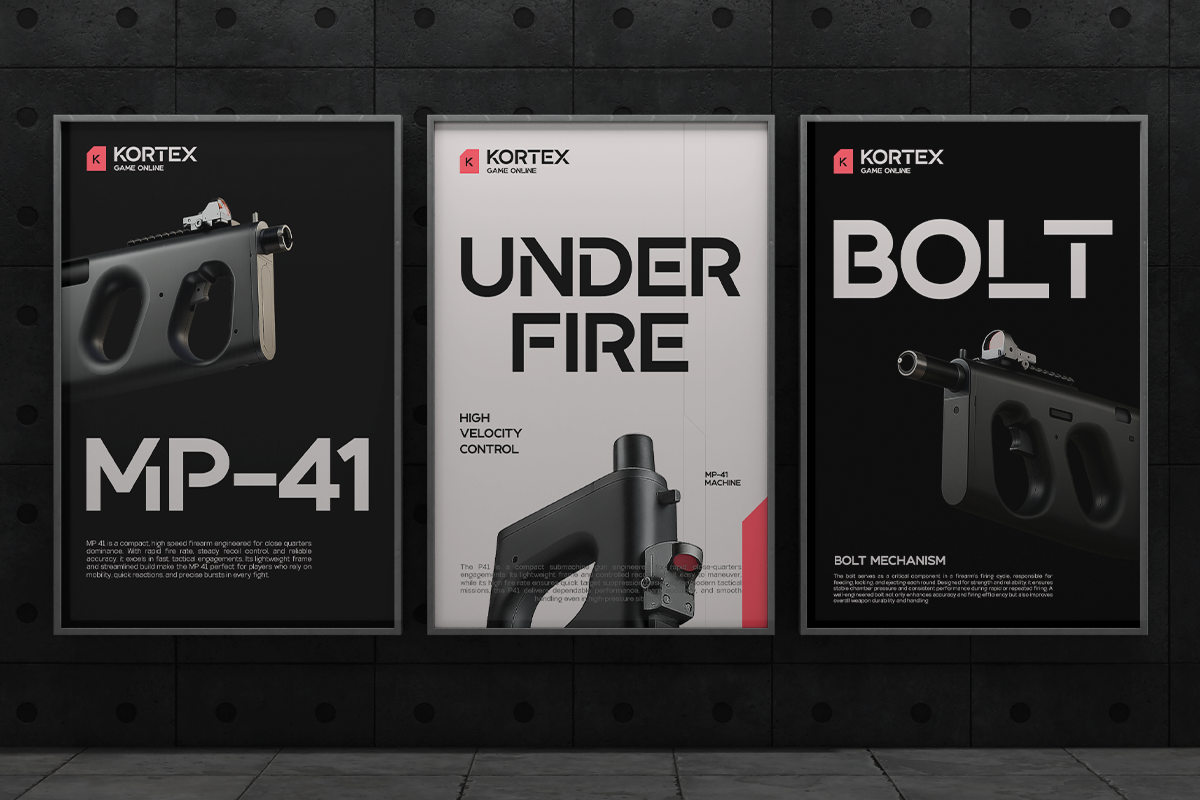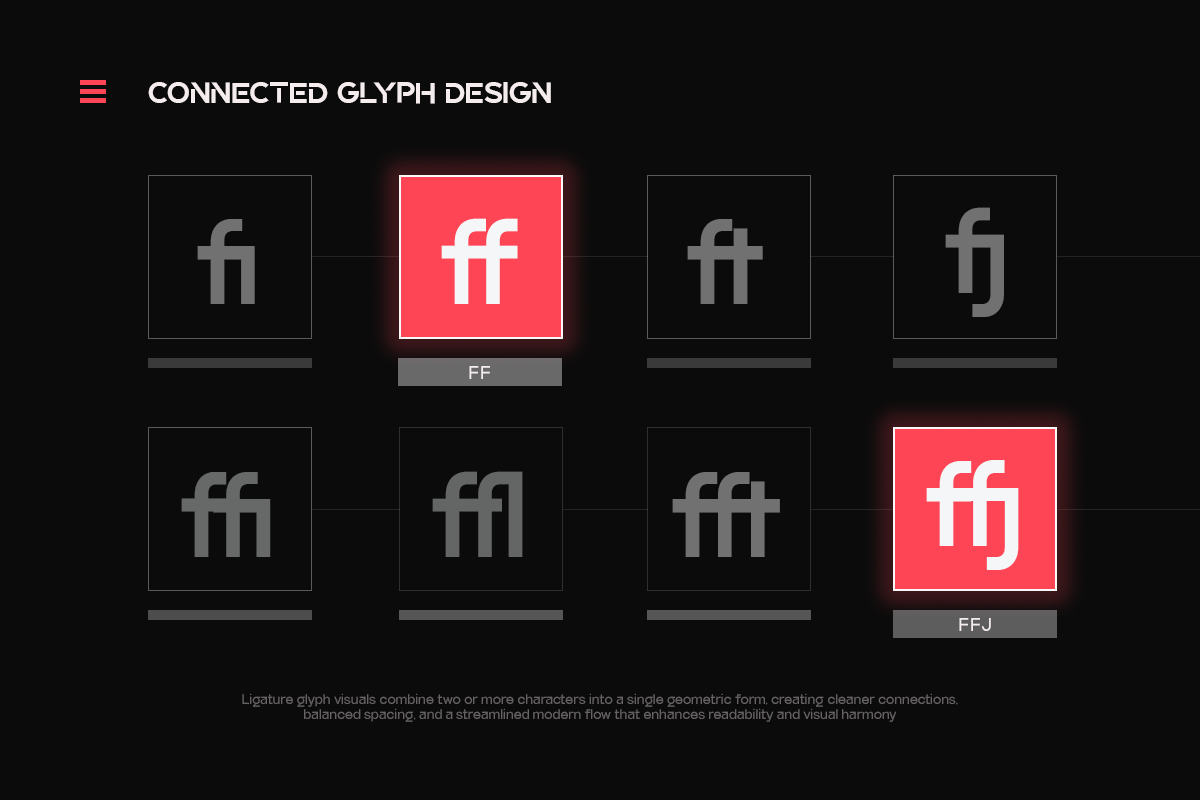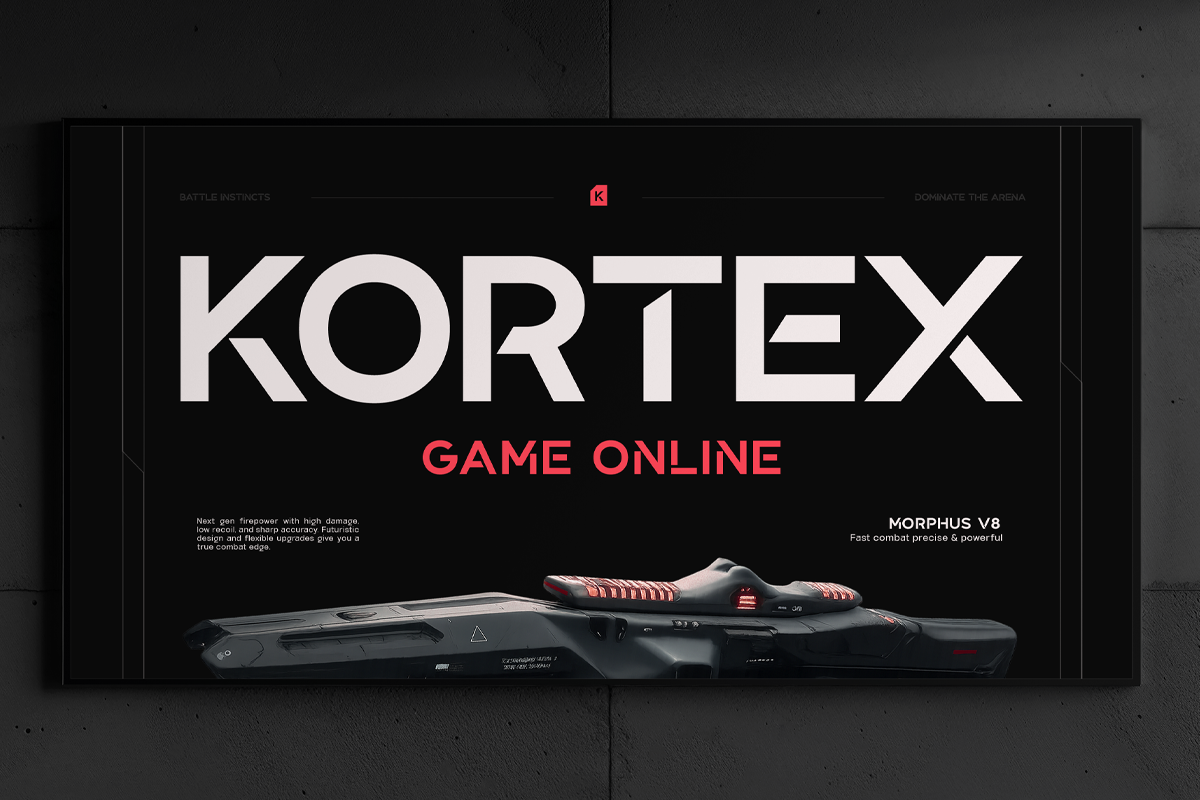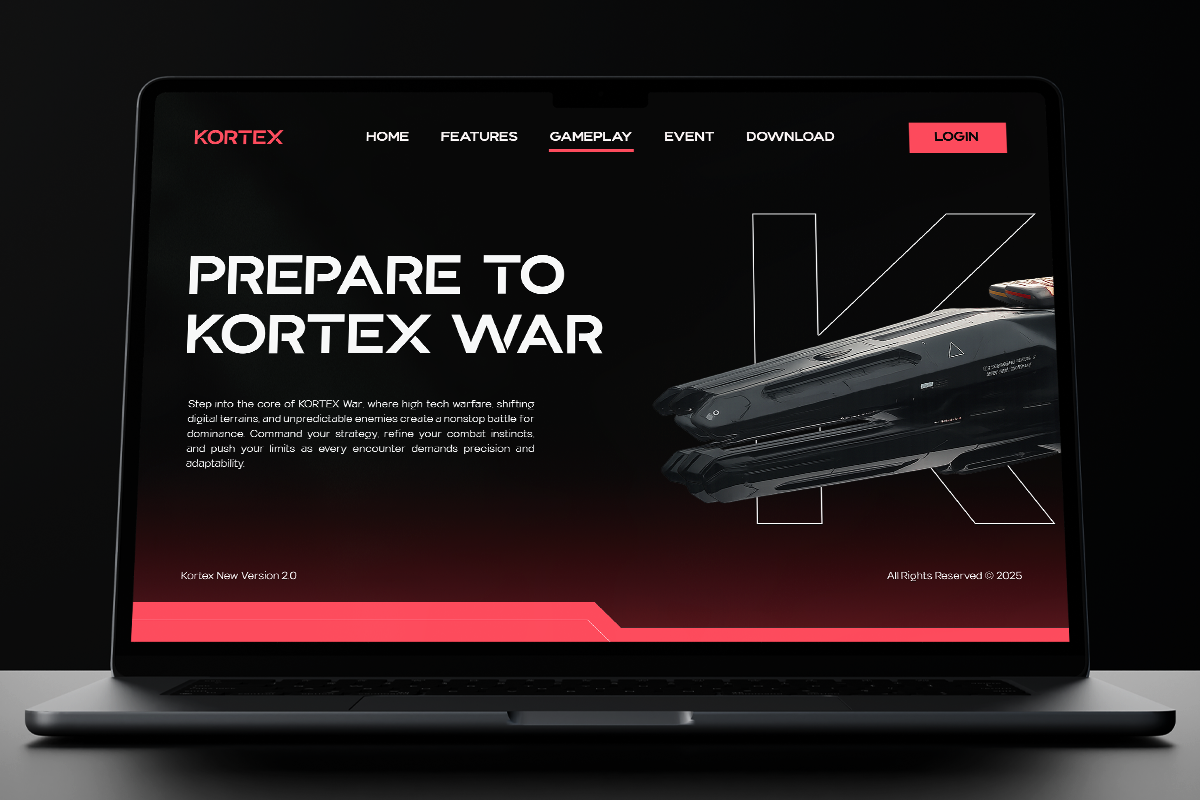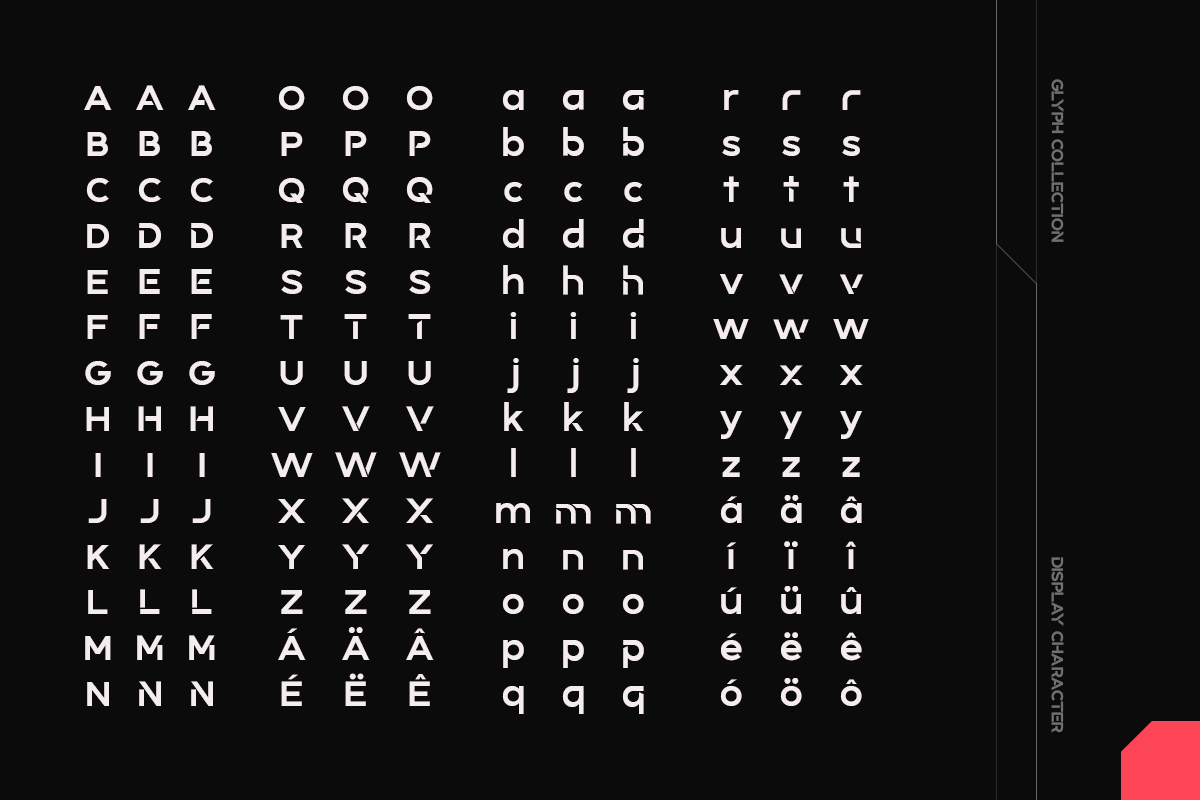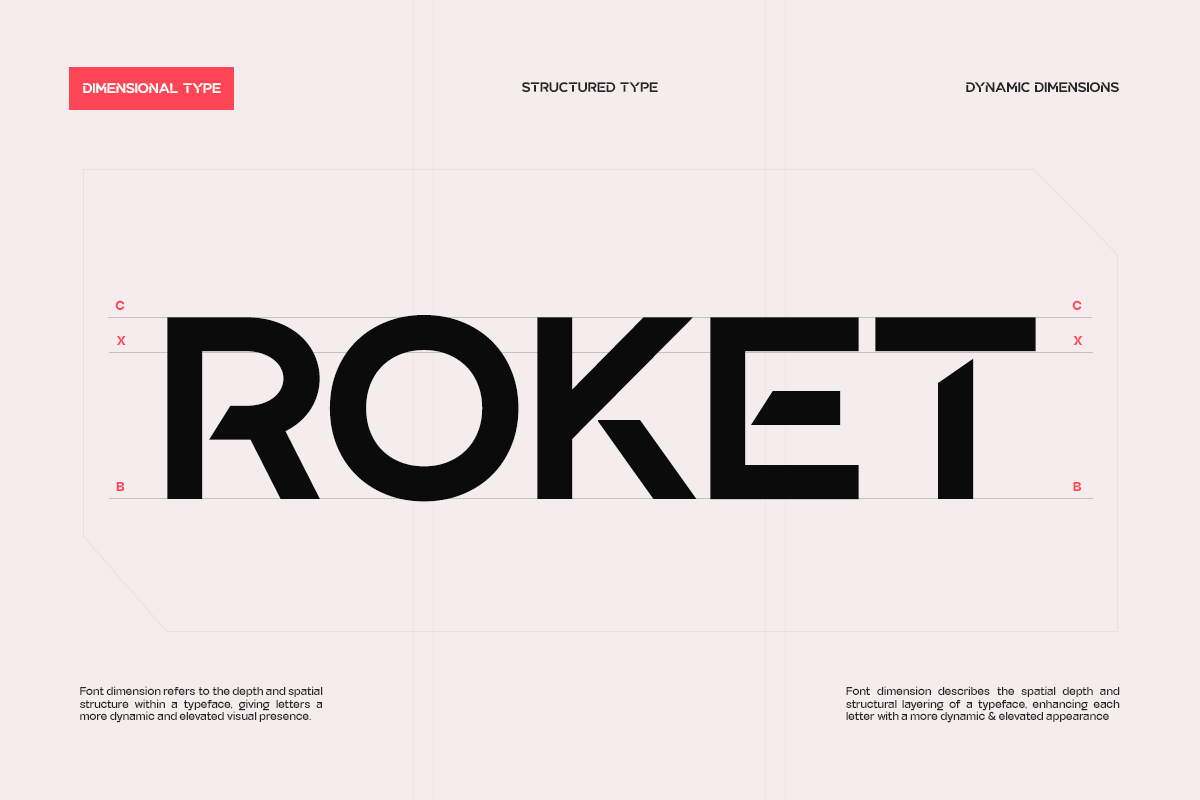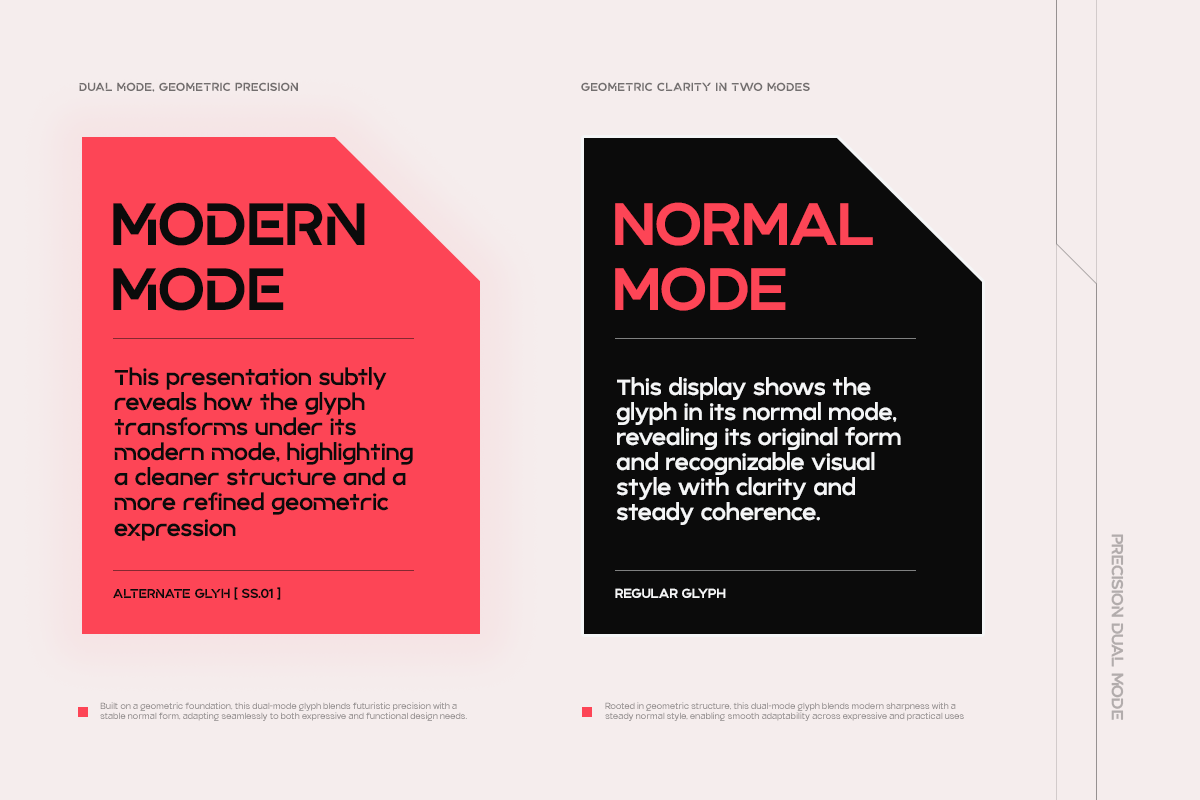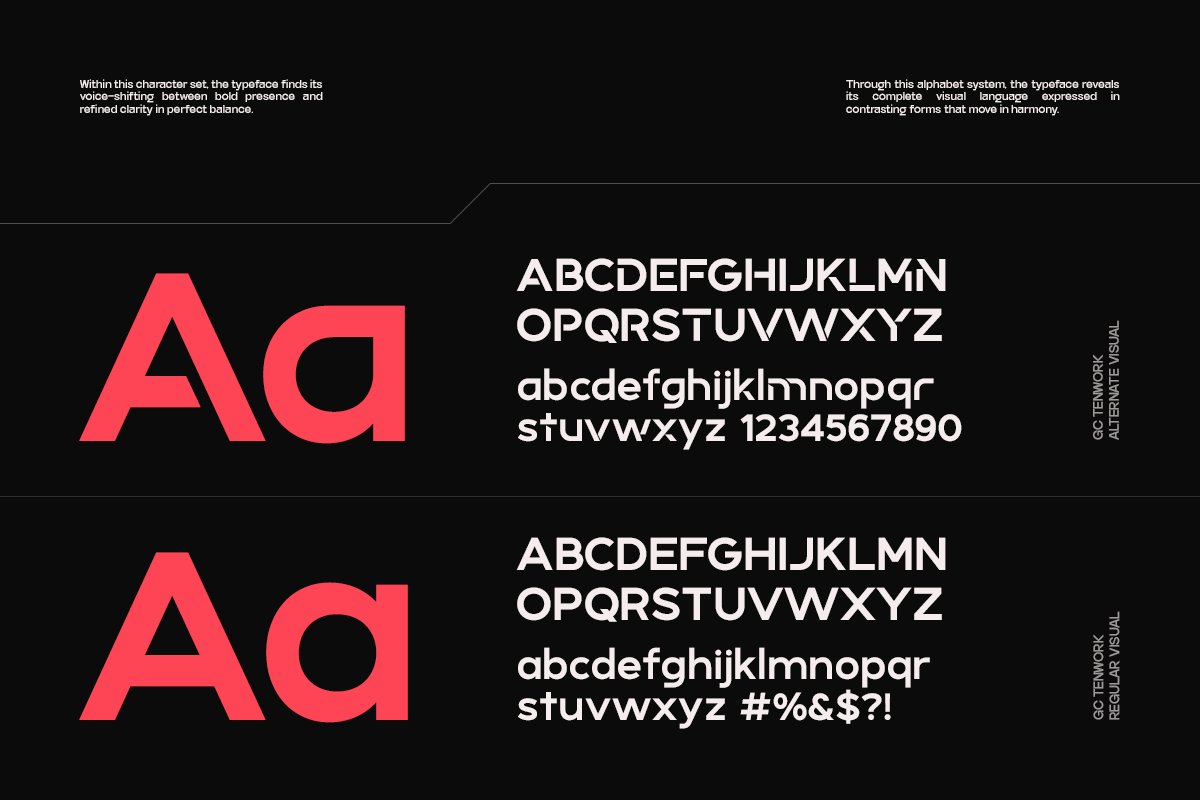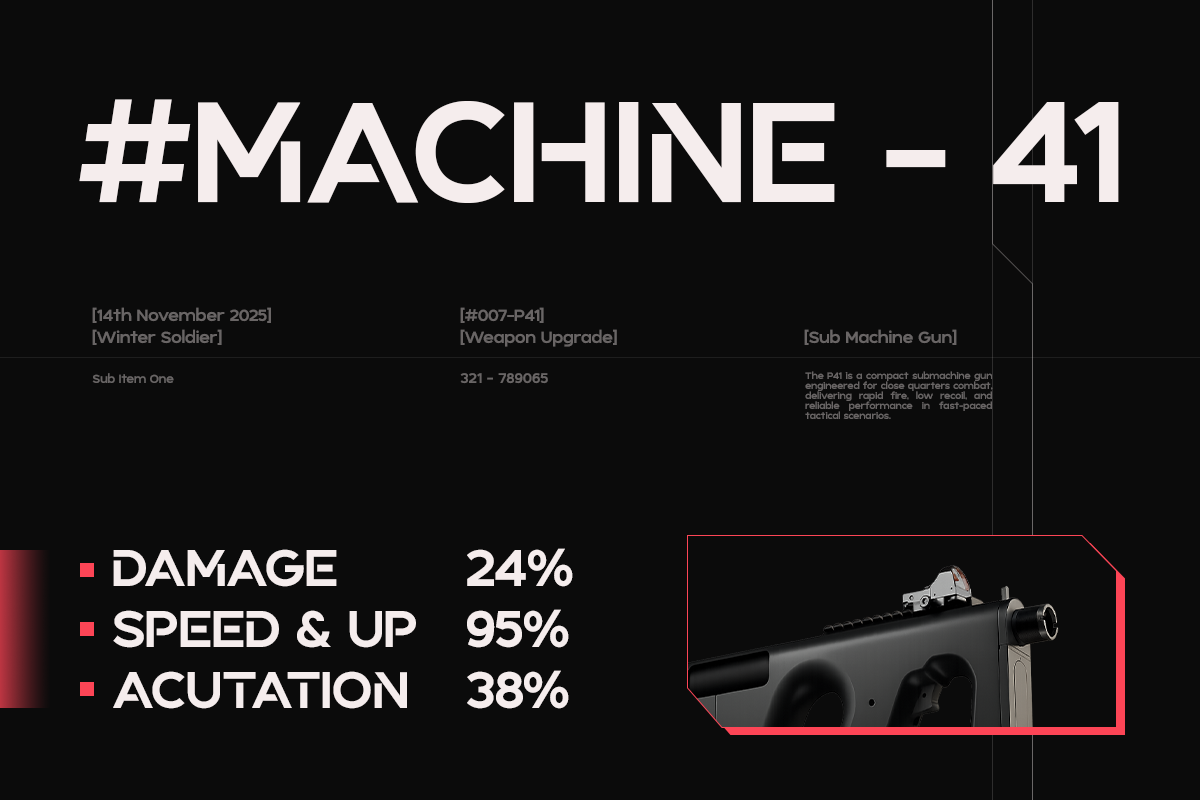
GC Tenwork - Modern Tech Sans
GC Tenwork – Modern Tech Sans is a forward-thinking sans serif typeface designed for precision, clarity, and modern digital performance. Built with clean geometry and strong, confident strokes, GC Tenwork delivers a sharp, tech-driven character that feels contemporary and reliable across all media.
Created to balance functionality with visual impact, this typeface is ideal for tech branding, digital interfaces, startups, editorial layouts, futuristic designs, and bold visual identities. Its well-proportioned structure and refined details ensure excellent readability while maintaining a modern, innovative aesthetic.
Whether you’re crafting sleek UI designs, powerful headlines, or minimal yet high-tech layouts, GC Tenwork brings clarity, structure, and modern confidence to your typography.
- Font Family (Multiple Weights)
- Uppercase & Lowercase Characters
- Modern Geometric Construction
- Multilingual Support (170+ Languages)
Bring precision, innovation, and modern tech aesthetics to your designs with GC Tenwork – Modern Tech Sans.